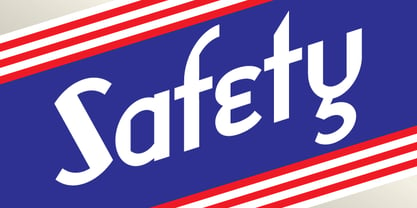
Safety
by Pelavin Fonts
About Safety Font Family
Safety is influenced by works from the Machine Age which had its greatest period between the two world wars and celebrated the triumphs of the late Industrial Age including mass production, skyscrapers, radio & phonographs, hydroelectric power and streamlined styling in industrial design. It is based on an Art Deco display style lettering known most popularly as Broadway or Manhattan but, having existed in a multitude of incarnations from showcard lettering to neon signs for a century.
About Pelavin Fonts
Daniel Pelavin is in his fifth decade of transforming and melding the images and cultural ephemera of our times into cogent and compelling messages for publishing, advertising and communication design. Working his way up through the ranks in the legendary art studios of Detroit, in the halcyon days of the early 1970's. Pelavin apprenticed and worked with artists from the entire gamut of graphic arts professionals, including, decorative, fashion, product and technical illustrators as well as letterers, typographers and designers. A fascination with letterforms from an early age has led him to create fonts, influenced by many different historical periods.